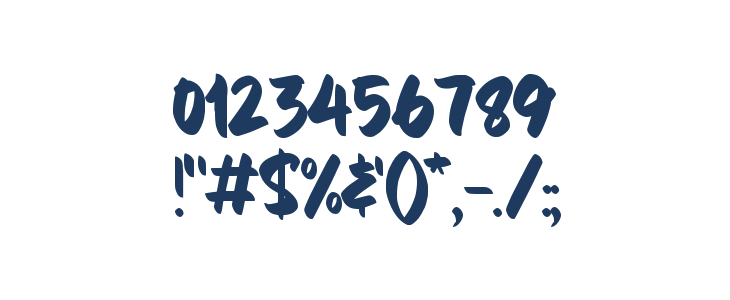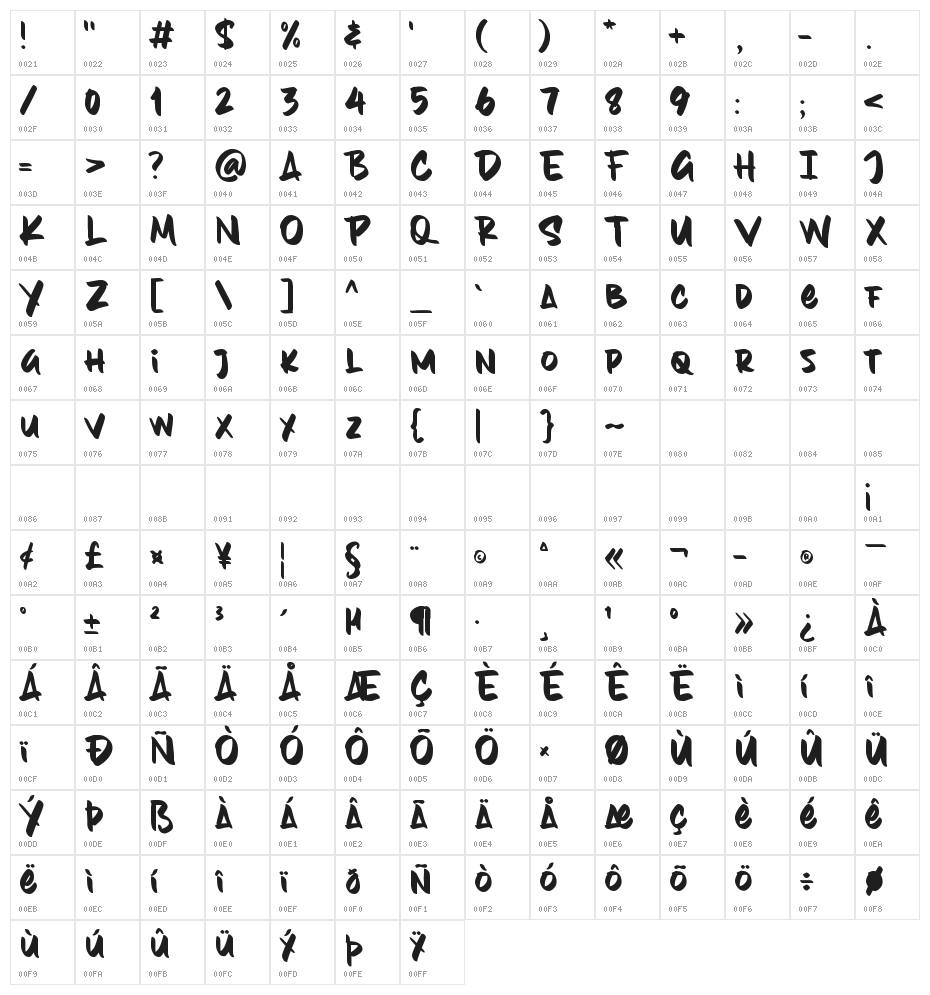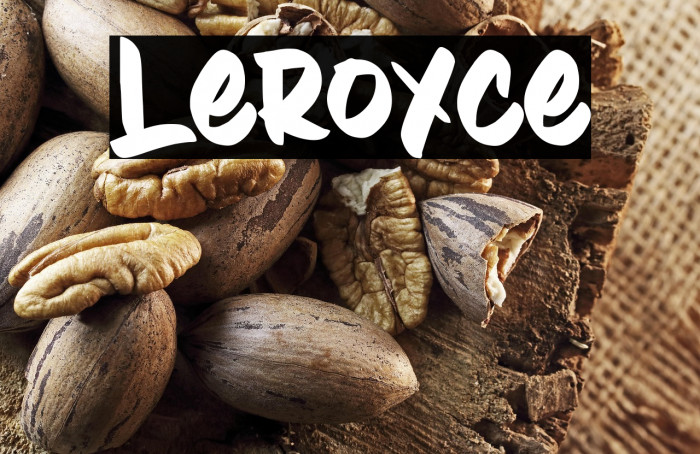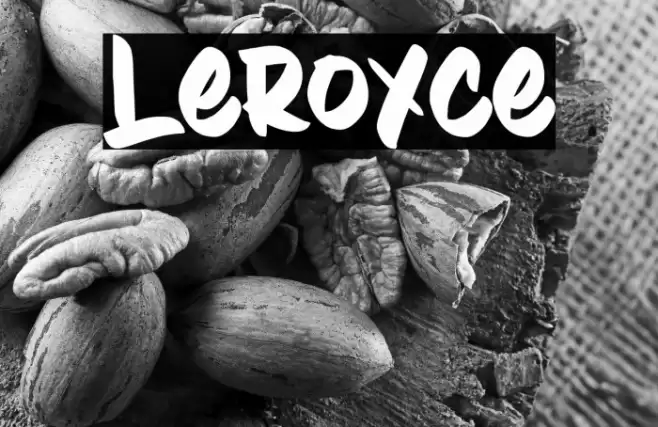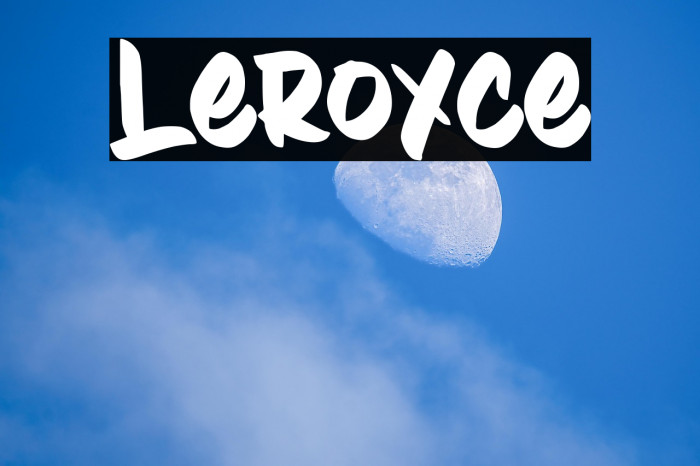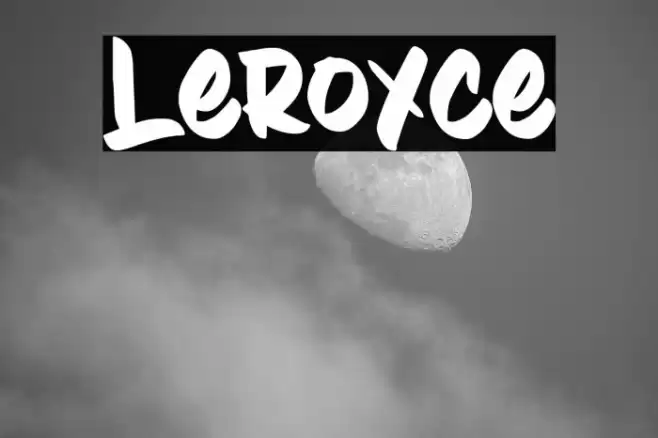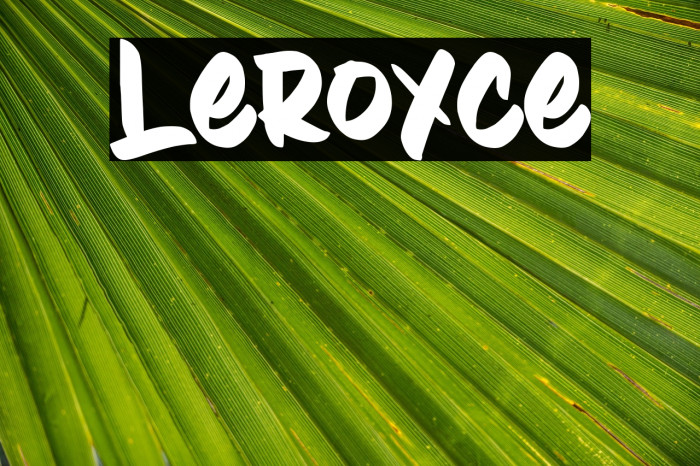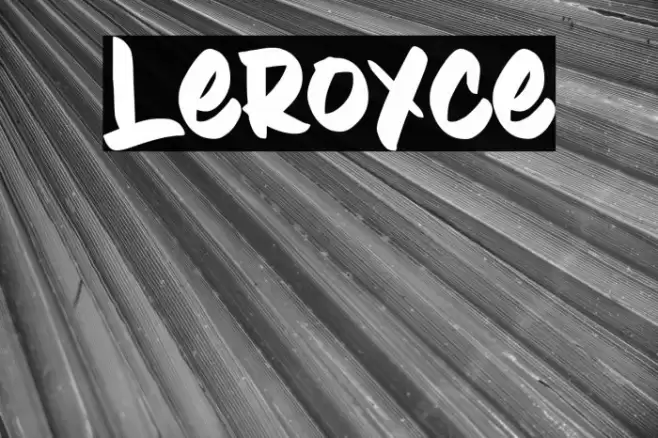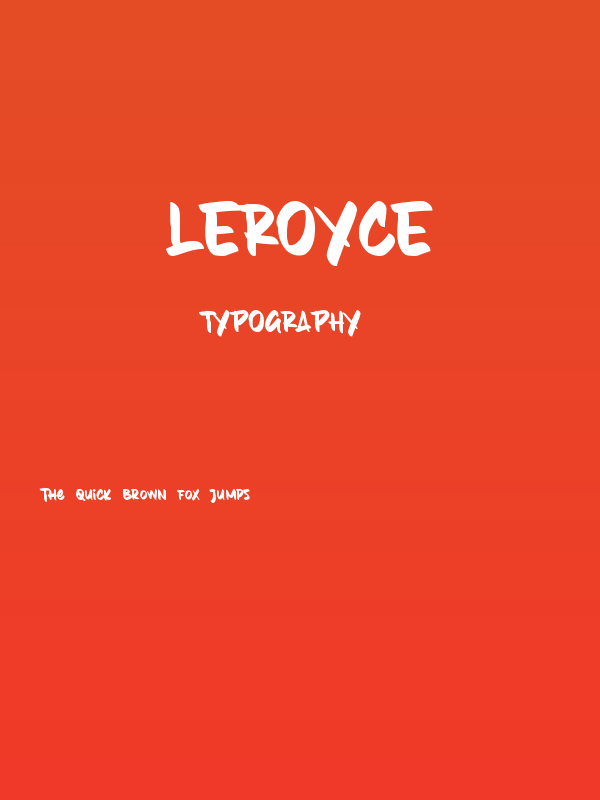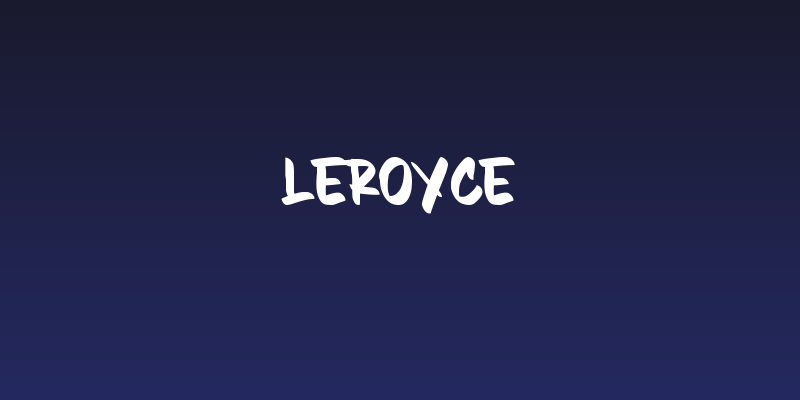
Leroyce Font
Leroyce Description
This font features a bold and expressive handwritten style, characterized by thick, energetic strokes that convey a sense of dynamism and personality. The uppercase and lowercase letters are crafted with a playful flair, making them stand out with their unique, slightly irregular shapes. The numbers and special characters maintain this lively aesthetic, ensuring consistency across all glyphs. The font's boldness and informal style make it ideal for projects that require a personal touch or a creative edge.
| Proposed Projects | Ideal for branding, posters, social media graphics, and any project needing a personal, creative touch. |